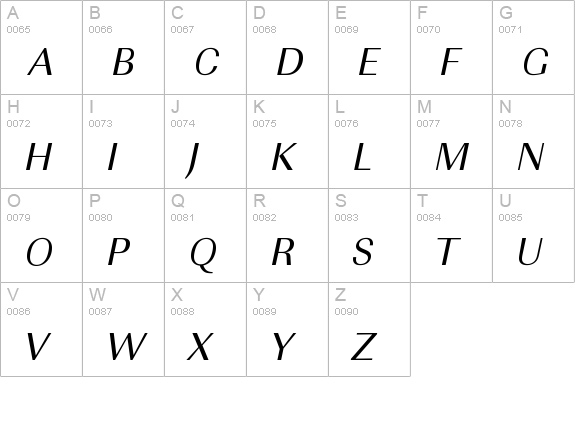
URWImperialTOT Oblique is a distinctive, italic variant in the URWImperialTOT typeface family \xE2\x80\x94 well suited to design and typography projects.
URWImperialTOT Oblique font combines elegance with a touch of modernity, making it a versatile choice for various design projects. This sophisticated font features slanted, stylish letterforms that exude a sense of sophistication and professionalism. Perfect for adding a sleek and polished look to your designs, URWImperialTOT Oblique font is ideal for branding, advertising, packaging, and more. The best part is that URWImperialTOT Oblique font is available for free download at FontsMarket.com. This means you can easily access this high-quality font to elevate your designs without any cost. Don't miss out on the opportunity to enhance your projects with the timeless appeal of URWImperialTOT Oblique font. Download it today and see the difference it can make in your designs!